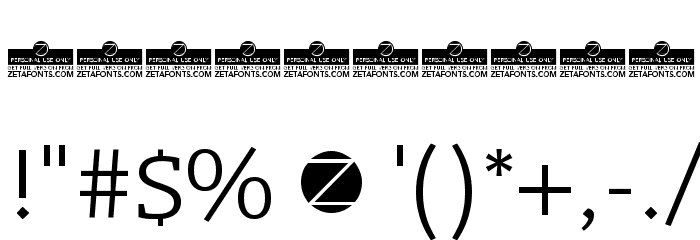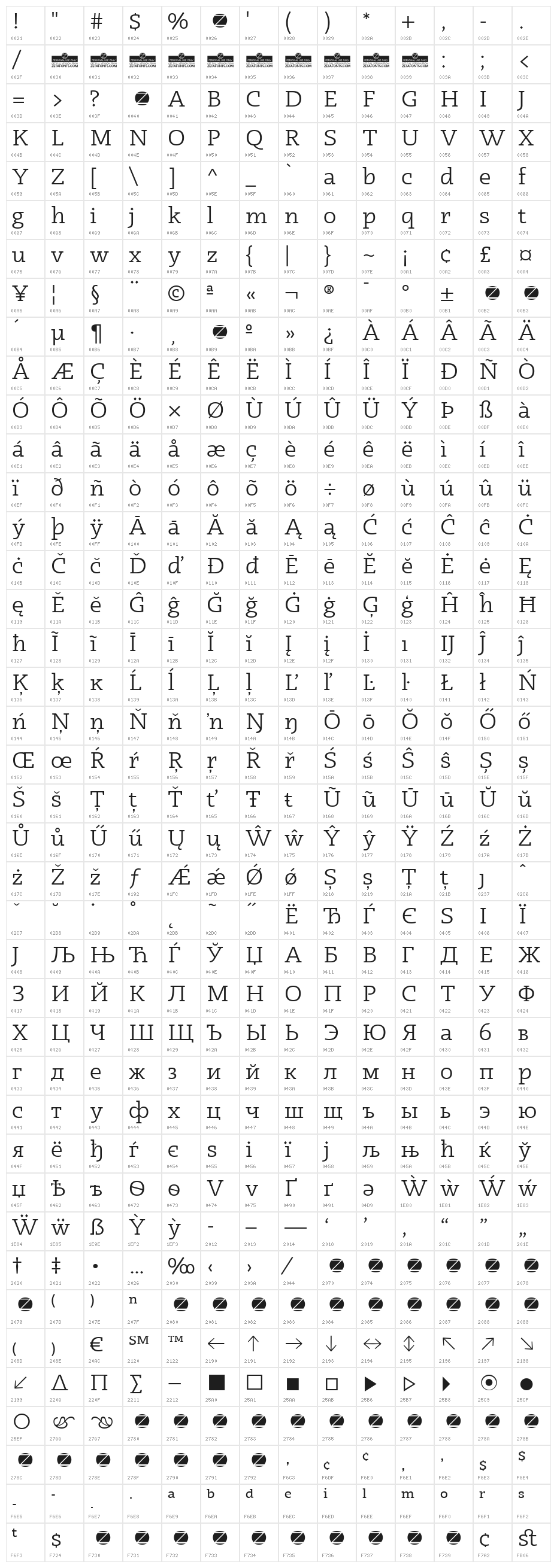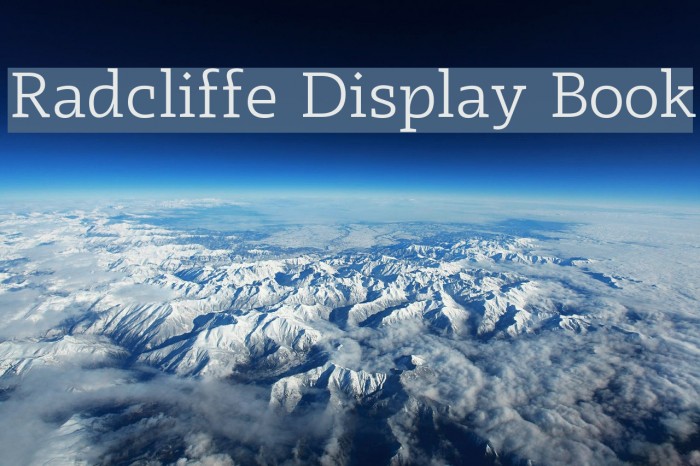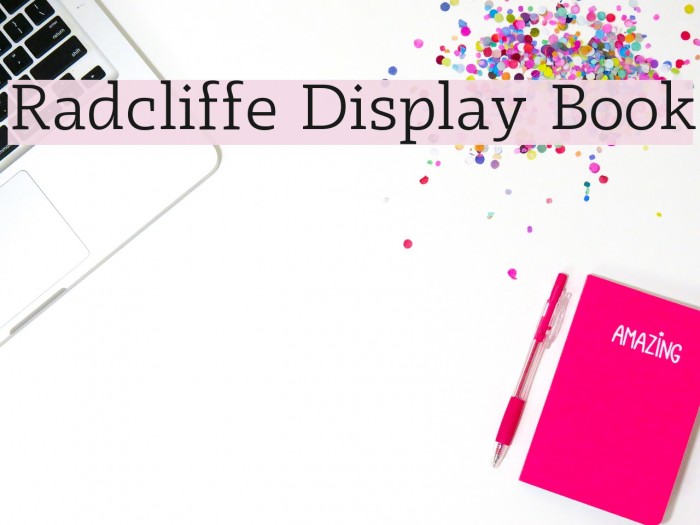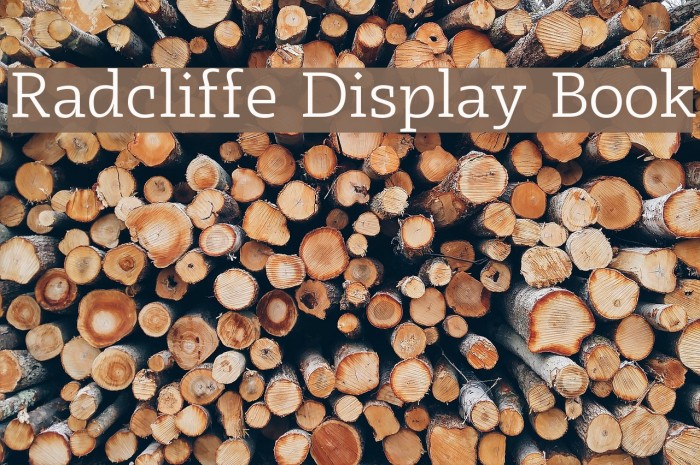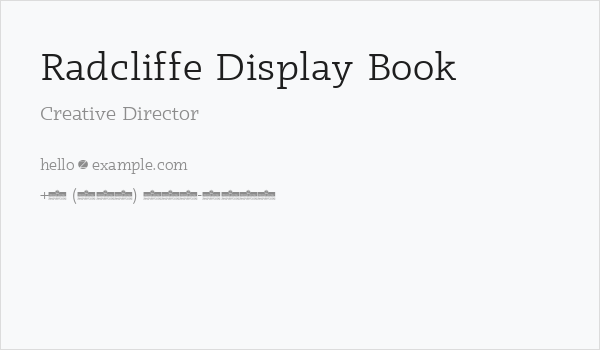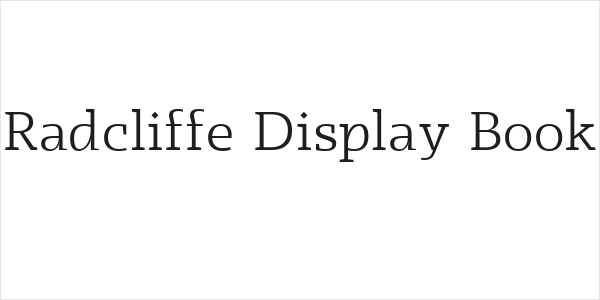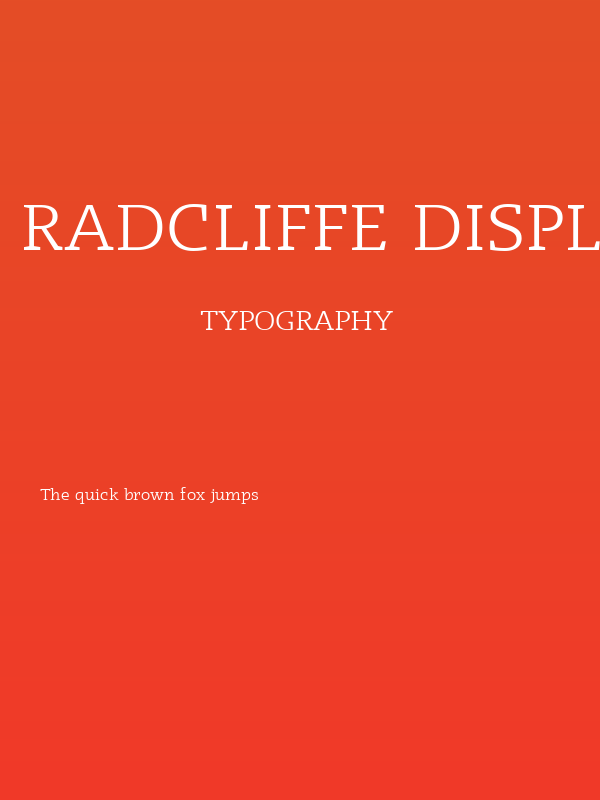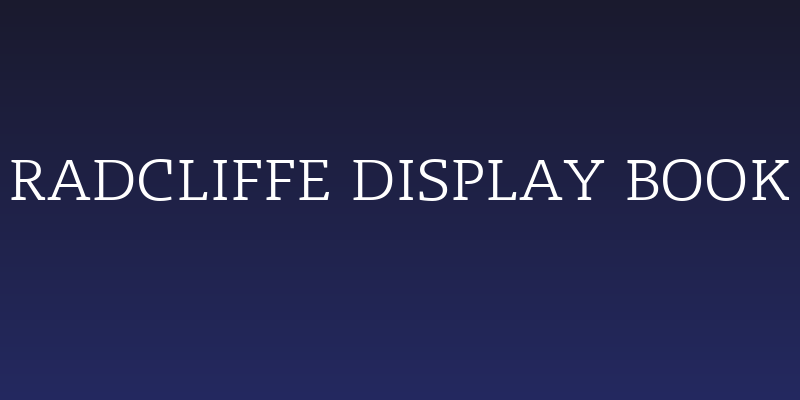
Radcliffe Display Book Font
Radcliffe Display Book Description
This font features a classic serif style with a modern twist, characterized by its clean lines and balanced proportions. The uppercase letters are bold and commanding, while the lowercase letters maintain a refined elegance. The numerals are clear and easily readable, making them suitable for various applications. Special characters are distinct and well-integrated into the overall design. The font's structure is both traditional and contemporary, making it versatile for a wide range of uses.
| Proposed Projects | Ideal for editorial design, book covers, branding, and sophisticated advertising campaigns. |